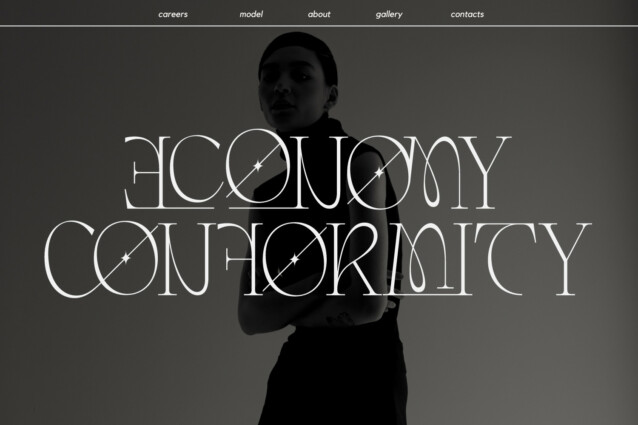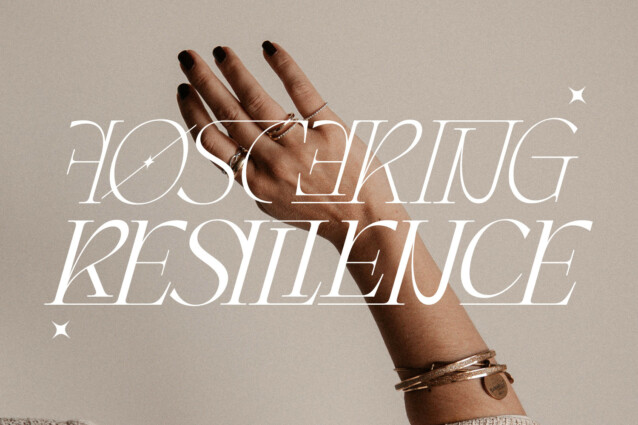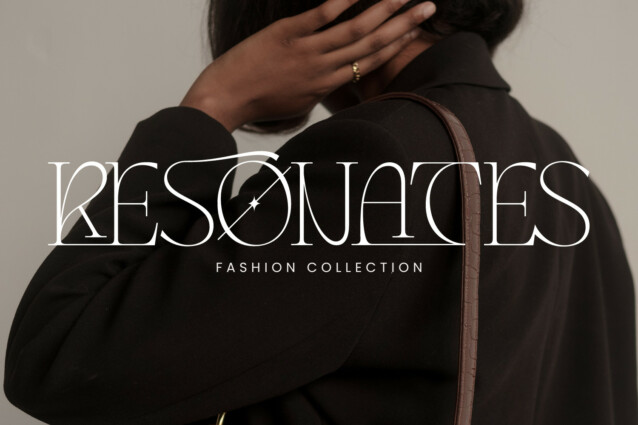
Innovar Elegant Font
Innovar Elegant Font is an unique ligatures font and very elegant font for brand and logo design. INNOVAR ELEGANT is a subtle serif font that exudes sophistication and elegance. Its stylish alternations and ligatures make this font the perfect partner for any project. It’s is a balanced, smooth, elegant and stylish serif font. He has a beautiful character. It fits perfectly with invitation card designs, company logos, movie titles, movie names, business cards, book titles, brand names and various other designs.
Innovar Elegant Font was built with OpenType features and includes 100 ligatures, alternate, numbers, punctuation, and it also supports other languages.
AC AD AL AN AR AS AT AU AV BE CA CE CH CO CT DE DI EA EC ED EE EL EM EN EP ER ES ET FE FO FR GE HA HE HI HO IE IC IL IN IO IR IS IT JU KE LA LE LI LL LO LY MA ME MI NC ND NE NG NO NT NS OC OF OM ON OO OP OR OT OU OW PA PR RA RD RE RI RO RS RT SE SH SI SO SS ST TA TE TH TI TO TR TT UM UN UR VE WI WO